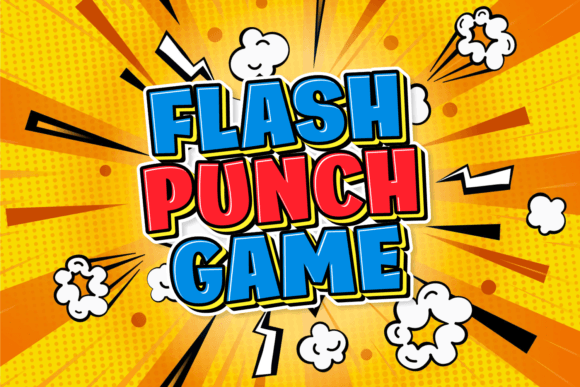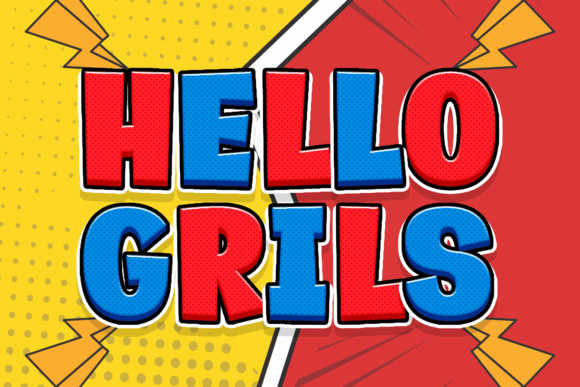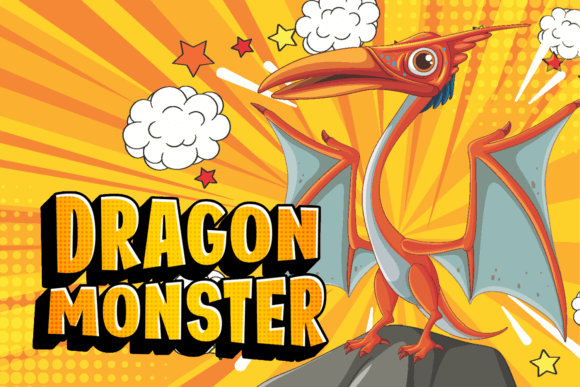
Astro Lunox Font: The Ultimate Choice for Playful and Dynamic Designs
Are you a designer or crafter looking for a font that can add a touch of playfulness and fun to your projects? Look no further than the Astro Lunox Font. This comic font is designed to bring a lighthearted and slightly futuristic aesthetic to your designs, making it perfect for cartoons, comics, children’s books, and other playful projects.
What is Astro Lunox Font?
Astro Lunox Font is a playful and dynamic comic font that embodies a lighthearted, fun, and slightly futuristic aesthetic. Its bubbly, hand-drawn letterforms capture the energy and expressiveness typical of comic book styles, making it perfect for designs that require a touch of whimsy and fun.
Key Features of Astro Lunox Font
- Playful and Dynamic Design: Astro Lunox Font features a playful and dynamic design that is perfect for cartoons, comics, and children’s books.
- Hand-Drawn Letterforms: The font features hand-drawn letterforms that capture the energy and expressiveness of comic book styles.
- Lighthearted and Fun Aesthetic: The font has a lighthearted and fun aesthetic that is perfect for designs that require a touch of whimsy and fun.
- Slightly Futuristic Design: The font has a slightly futuristic design that makes it perfect for designs that require a touch of modernity.
Use Cases for Astro Lunox Font
Astro Lunox Font is perfect for a variety of design projects, including:
- Cartoons and Comics: The font is perfect for cartoons and comics that require a playful and dynamic design.
- Children’s Books: The font is perfect for children’s books that require a fun and engaging design.
- Playful Design Projects: The font is perfect for playful design projects that require a touch of whimsy and fun.
- Branding and Advertising: The font can also be used for branding and advertising projects that require a playful and dynamic design.
Benefits of Using Astro Lunox Font
There are several benefits to using Astro Lunox Font in your design projects, including:
- Unique and Eye-Catching Design: The font features a unique and eye-catching design that is sure to grab the attention of your audience.
- Highly Versatile: The font is highly versatile and can be used for a variety of design projects.
- Customizable: The font is customizable, allowing you to adjust the design to fit your specific needs.
Tips for Using Astro Lunox Font
Here are a few tips for using Astro Lunox Font in your design projects:
- Use it for Headings and Titles: The font is perfect for headings and titles that require a playful and dynamic design.
- Pair it with Other Fonts: The font can be paired with other fonts to create a unique and visually appealing design.
- Adjust the Size and Color: Adjust the size and color of the font to fit your specific design needs.
- Experiment with Different Styles: Experiment with different styles, such as bold and italic, to add variety to your design.
Astro Lunox Font is a playful and dynamic comic font that is perfect for designers and crafters looking to add a touch of whimsy and fun to their projects. With its hand-drawn letterforms, lighthearted and fun aesthetic, and slightly futuristic design, this font is sure to grab the attention of your audience. Whether you’re working on a cartoon, comic, children’s book, or playful design project, Astro Lunox Font is the ultimate choice for creating engaging and visually appealing designs.